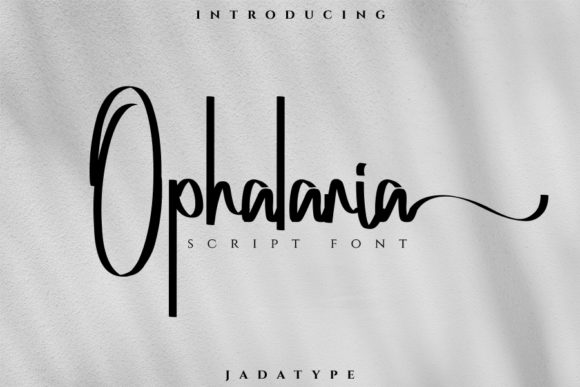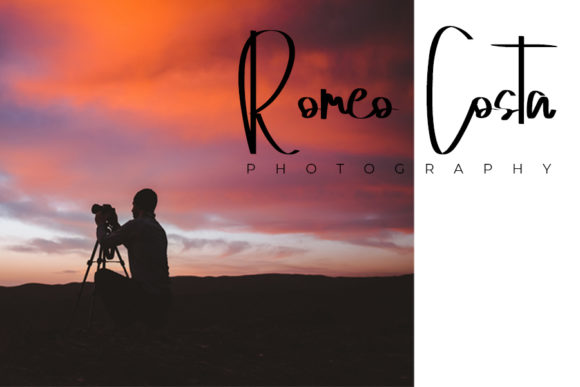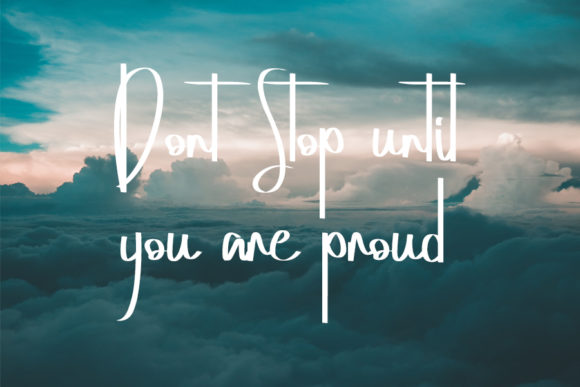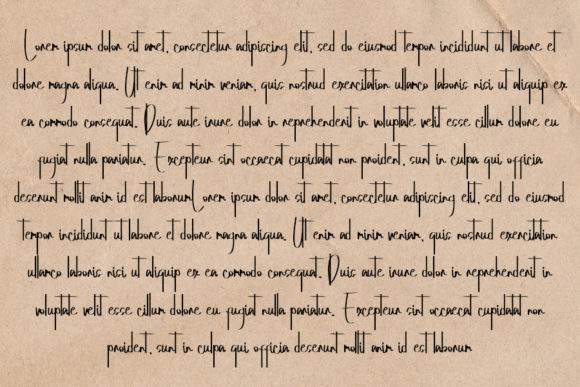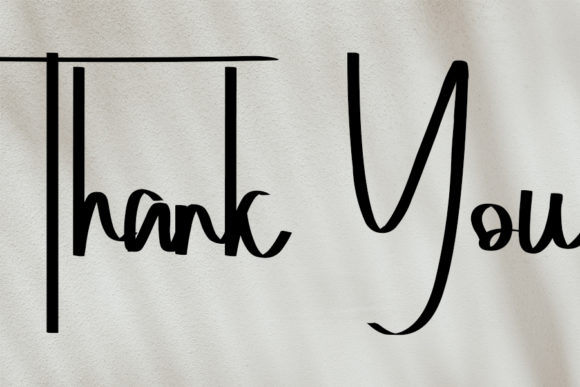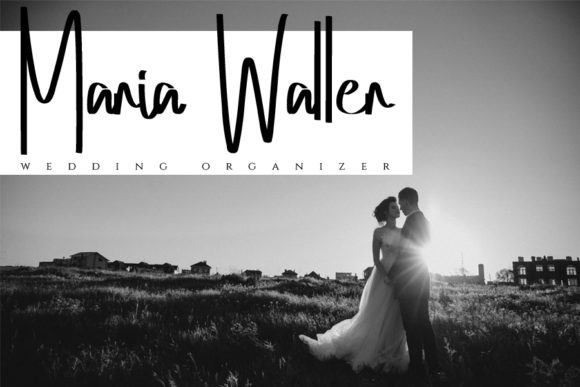
Ophalaria Font
About Ophalaria Font
Ophalaria is a modern script font with a touch of elegance in every character. Its beautifully designed letterforms make it a stunning choice for a wide range of design projects that require a handwritten touch. From wedding invitations and thank you cards to quotes, greeting cards, logos, and business cards, Ophalaria font adds a sophisticated and personalized feel to every design.
The allure of Ophalaria font lies in its modern and stylish script style. Each letter is crafted with meticulous attention to detail, showcasing exquisite curves and graceful strokes. Its elegant and flowing characters bring a sense of sophistication and charm to any design, creating a captivating visual experience for the viewer.
Wedding invitations come to life with Ophalaria font. Its modern script design perfectly complements the romantic and celebratory atmosphere of weddings. Whether you’re designing elegant wedding invitations, save-the-date cards, or RSVP cards, Ophalaria font adds a touch of elegance and personalization, setting the tone for a memorable event.
Thank you cards also benefit from the handwritten touch of Ophalaria font. Its delicate and stylish letterforms convey a sense of gratitude and warmth. Whether you’re expressing appreciation to loved ones, clients, or colleagues, Ophalaria font adds a heartfelt and personal touch to your messages, making them even more special.
Quotes and greeting cards take on a new level of beauty with Ophalaria font. Its elegant characters bring out the essence of inspiring words and heartfelt messages, creating visually appealing designs that resonate with the recipient. Whether you’re designing quote prints, inspirational greeting cards, or motivational social media graphics, Ophalaria font adds a touch of sophistication and authenticity.
Moreover, Ophalaria font is a versatile choice for logos and business cards. Its modern script design conveys a sense of professionalism and creativity. Whether you’re creating a logo for a boutique business, a stylish brand, or a creative agency, Ophalaria font enhances your brand identity with its elegant and memorable letterforms. It also adds a personal touch to business cards, making a lasting impression on potential clients and partners.
One of the notable features of Ophalaria font is its PUA encoding. This means that accessing all the glyphs and swashes is effortless. The wide range of alternate characters and swashes allow you to customize and embellish your designs with ease, adding a unique and personalized flair to your creations.
In summary, Ophalaria is a modern script font that adds a touch of elegance and personalization to your designs. Its versatility makes it suitable for a variety of applications, including wedding invitations, thank you cards, quotes, greeting cards, logos, and business cards. With Ophalaria font, you can create visually stunning designs that leave a lasting impression and evoke a sense of sophistication.